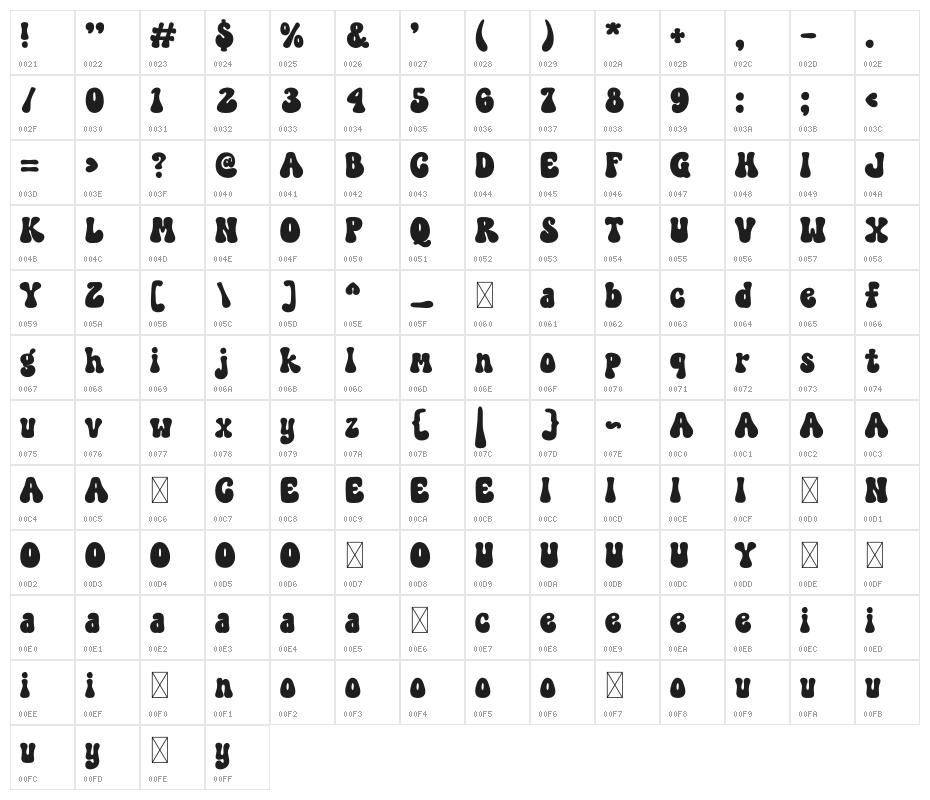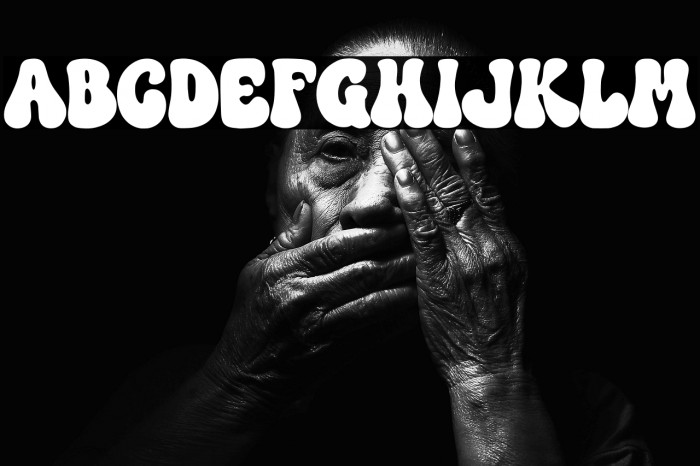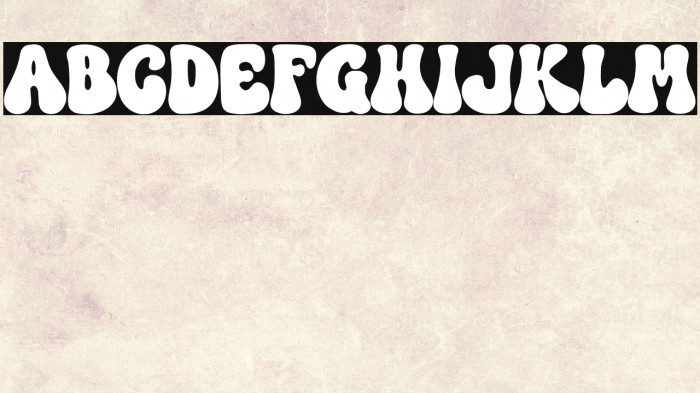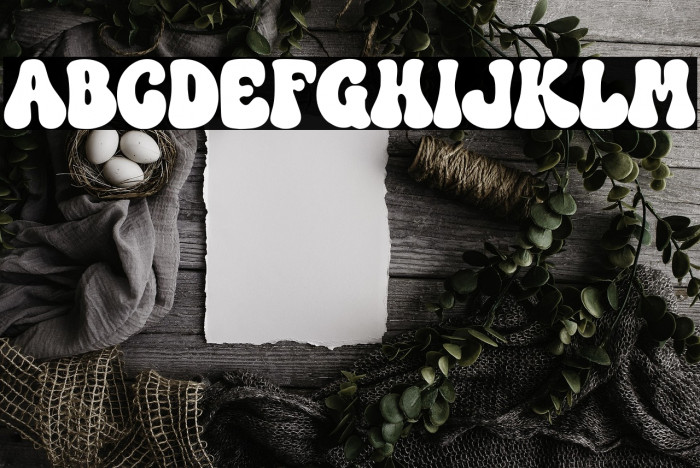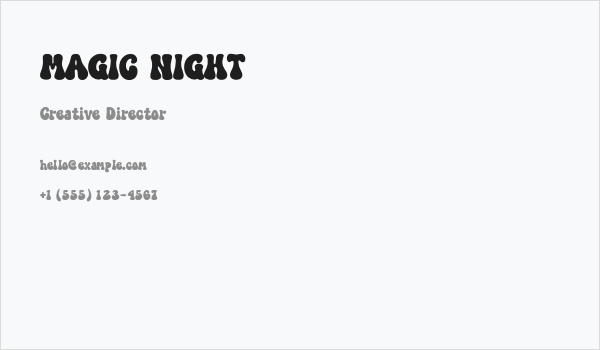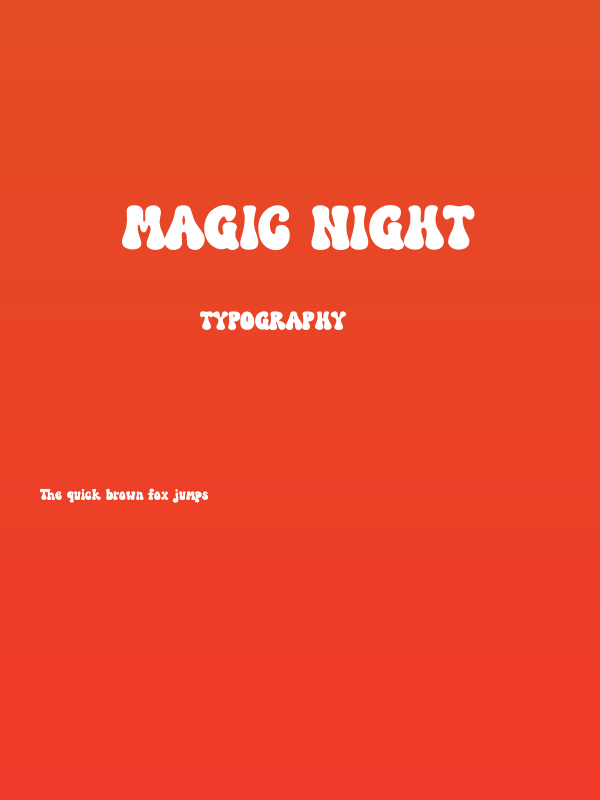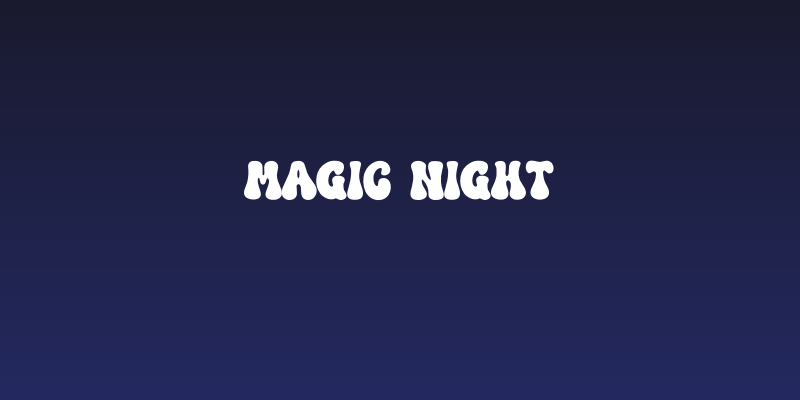
MAGIC NIGHT Font
MAGIC NIGHT Description
This font features a playful and bold design with rounded, bubbly characters that convey a sense of whimsy and fun. The letters are thick and have a soft, flowing appearance, making them stand out with a unique, almost cartoonish style. The overall look is reminiscent of retro or psychedelic designs, with a touch of modern flair. The characters are well-spaced, ensuring readability while maintaining their distinctive style. This font is ideal for projects that require a lively and eye-catching typeface.
| Overall Style | Playful, Retro |
| Proposed Projects | Perfect for children's books, party invitations, playful branding, and retro-themed designs. |